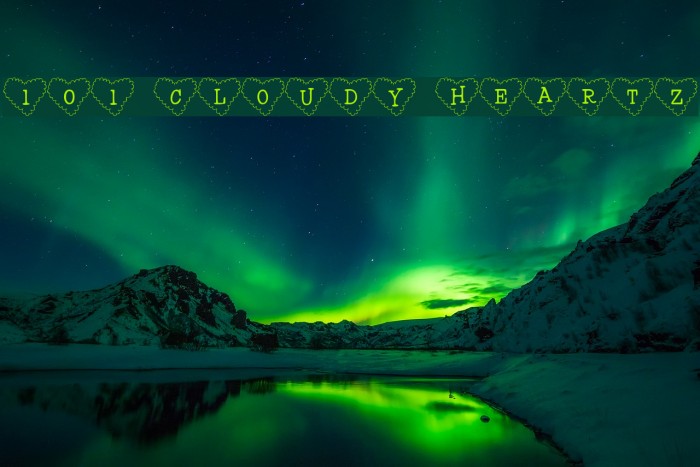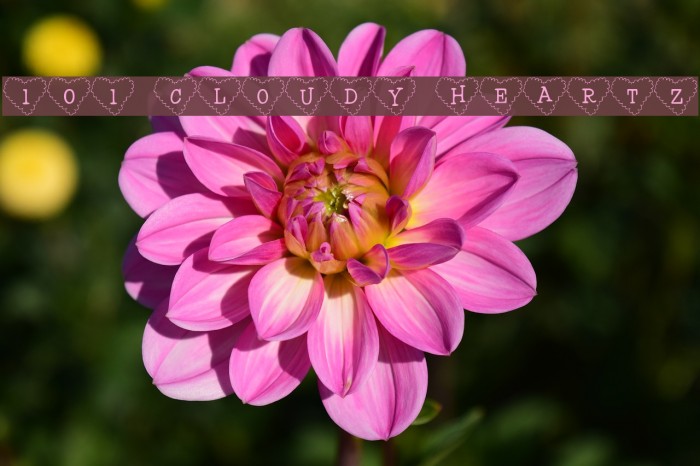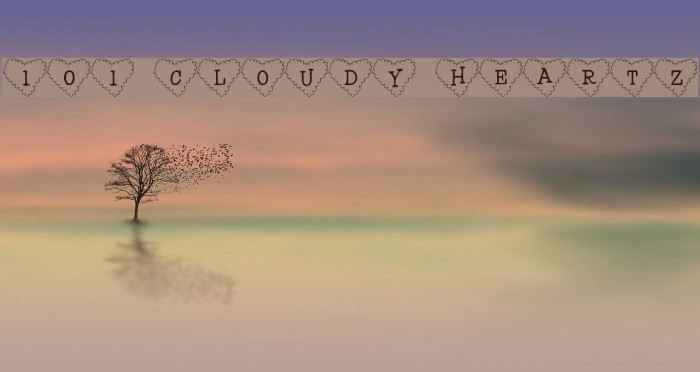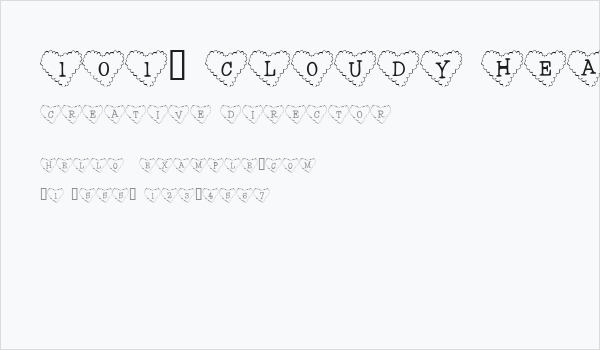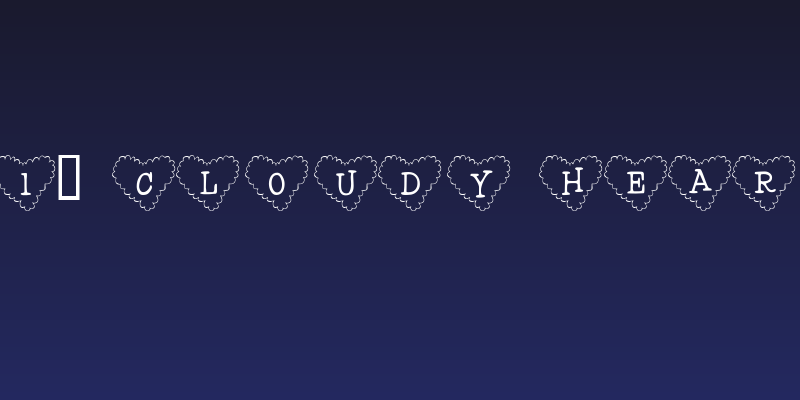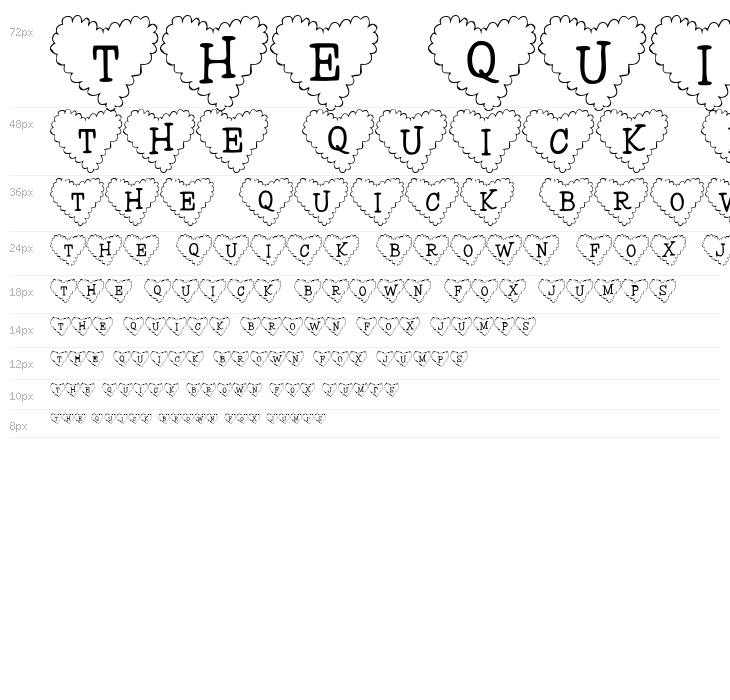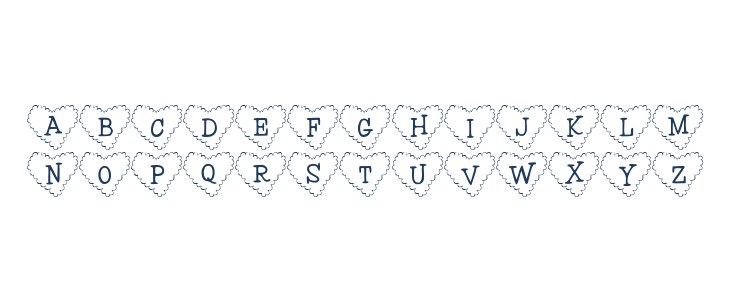
101! Cloudy HeartZ Font
101! Cloudy HeartZ Description
This playful and decorative font features each character enclosed within a heart shape, giving it a whimsical and romantic feel. The letters are uppercase and evenly spaced, with a consistent stroke width that maintains readability despite the decorative elements. The heart outlines are composed of a cloud-like, scalloped pattern, adding a touch of softness and charm. This font is ideal for projects that require a lighthearted and affectionate tone, such as greeting cards, wedding invitations, or children's book covers. The consistent design ensures that each character is easily distinguishable, making it both fun and functional.
| Proposed Projects | Greeting cards, wedding invitations, children's book covers, playful posters. |